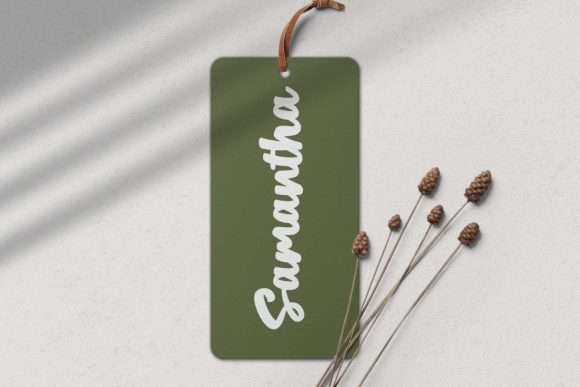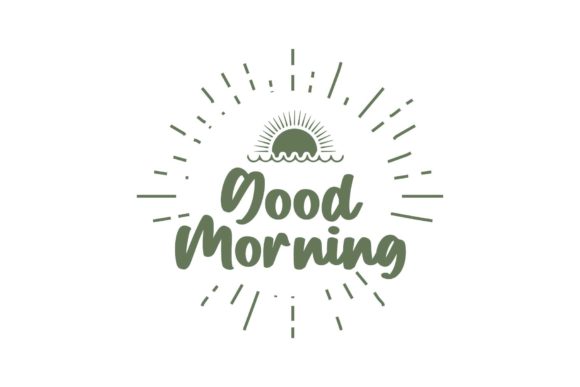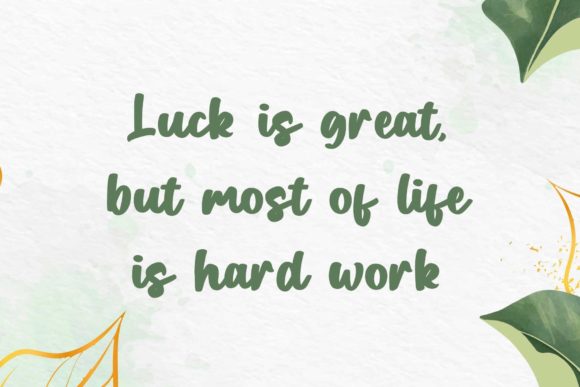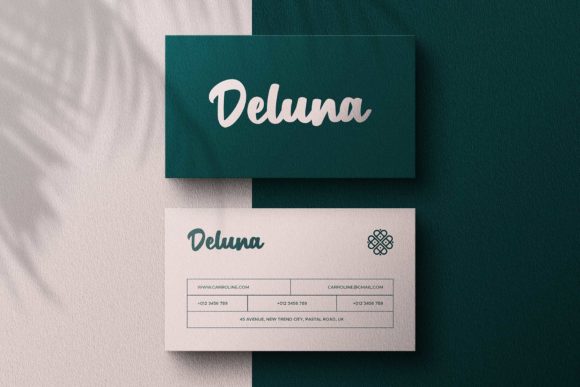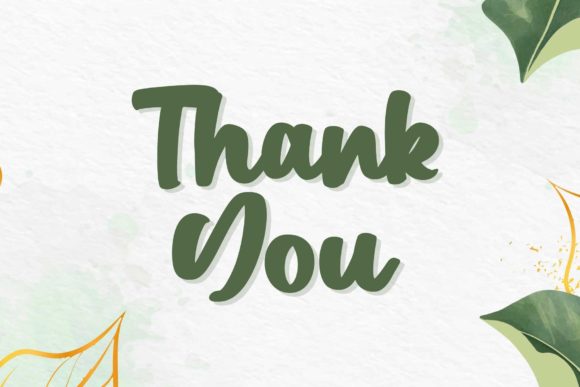
About South Gate Font
South Gate is a fashionable and cursive handwritten font. Fall for its exquisite style and use it to create gorgeous wedding invitations, beautiful stationary art, eye-catching social media posts, and much more!